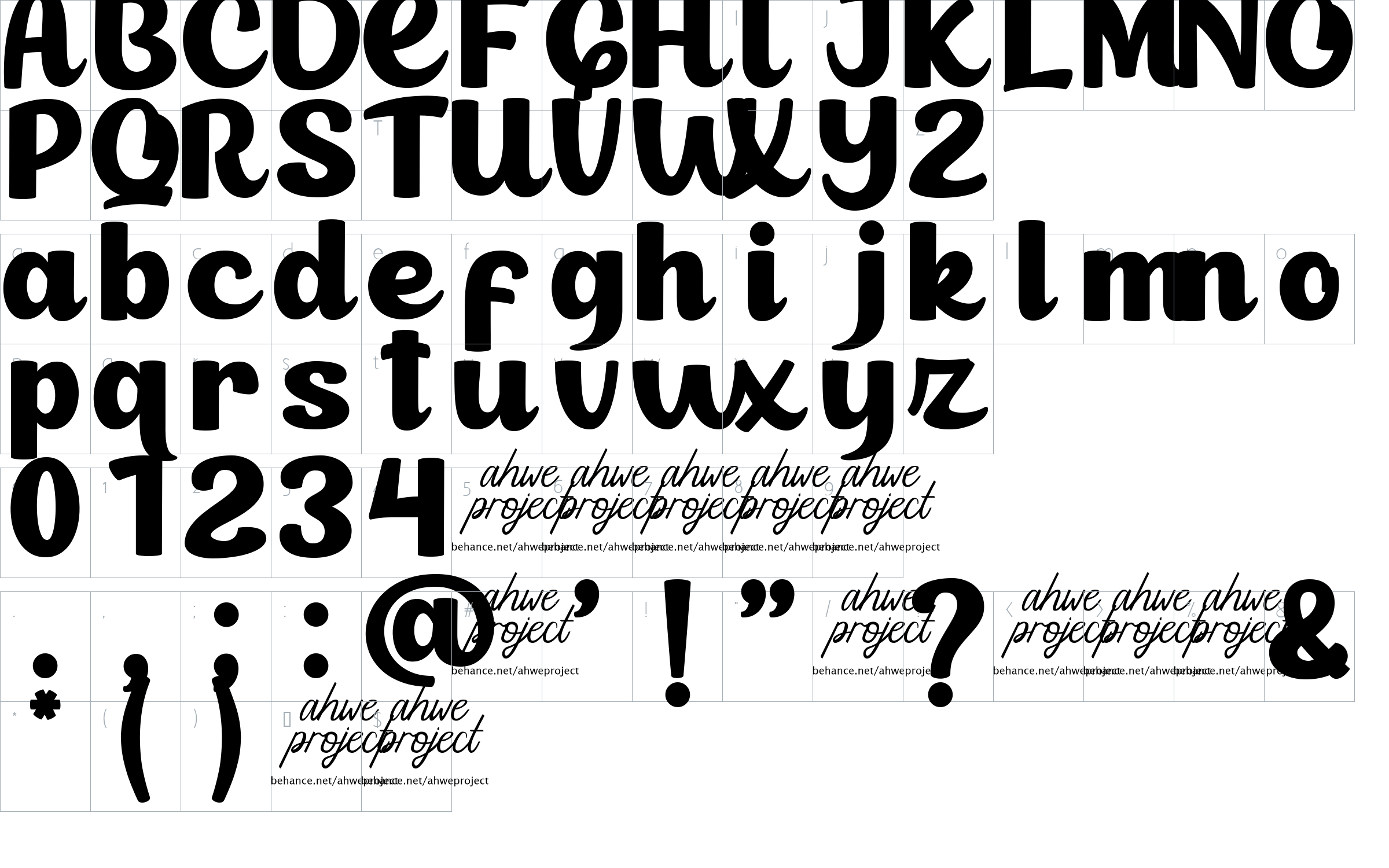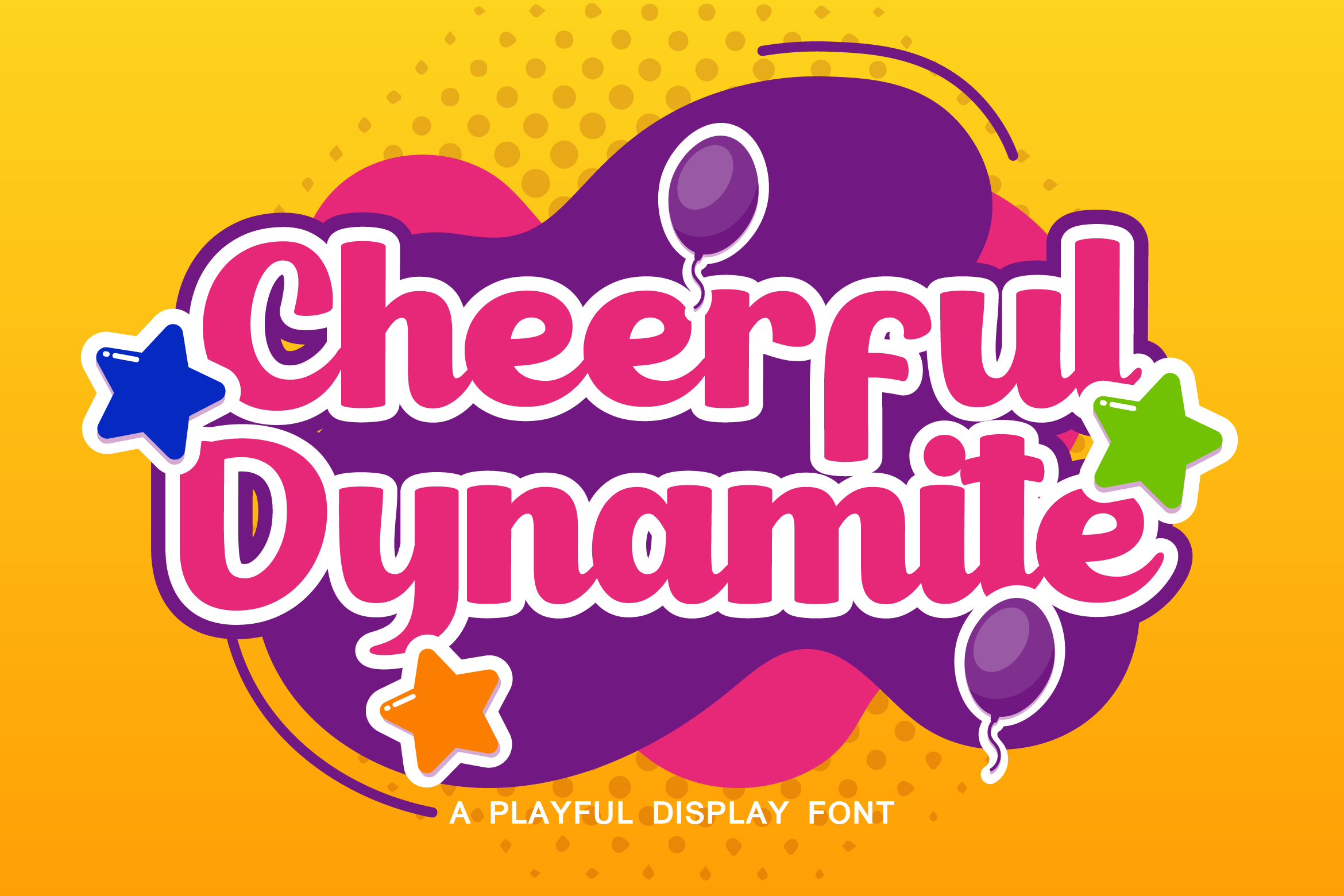
Cheerful Dynamite - Playful Display Font Font
Cheerful Dynamite is a playful display font, carefully handcrafted to become a true favorite. Its casual charm makes it appear wonderfully down-to-earth, readable and so versatile.
Cheerful Dynamite is perfect for branding projects, logo, social media posts, product designs, label, watermark, stationery and any projects.